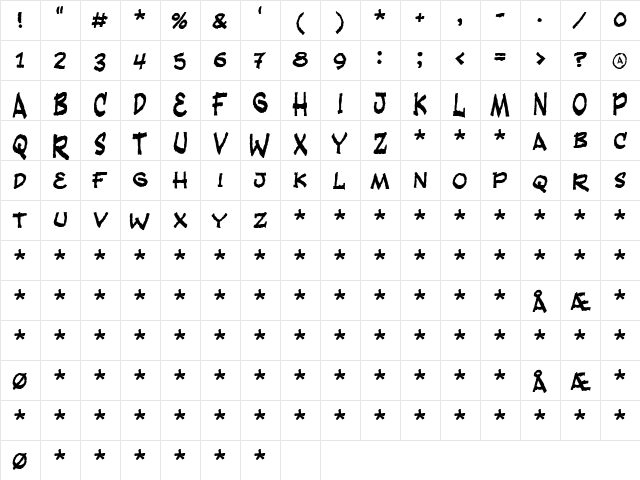
Fandango Regular Free Font
Fandango Regular
Fandango Family
Fandango Regular
Design Context for Fandango
Fandango is a composed and adaptable typeface that performs quietly and consistently across a wide range of design contexts.